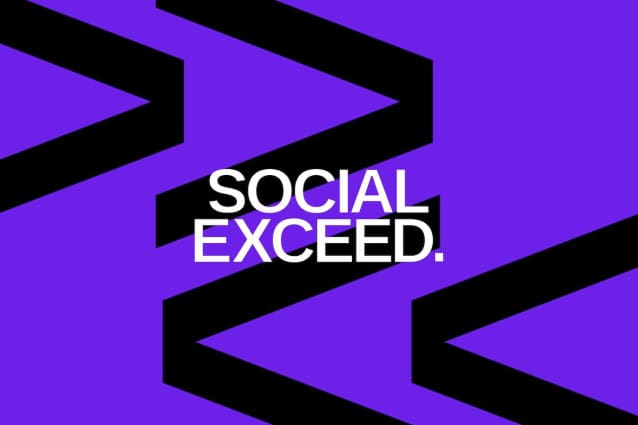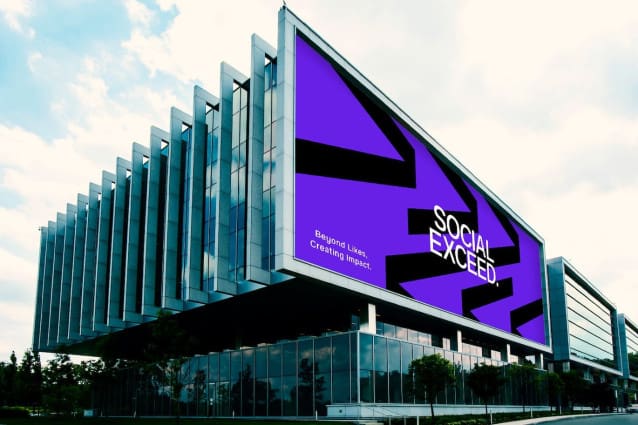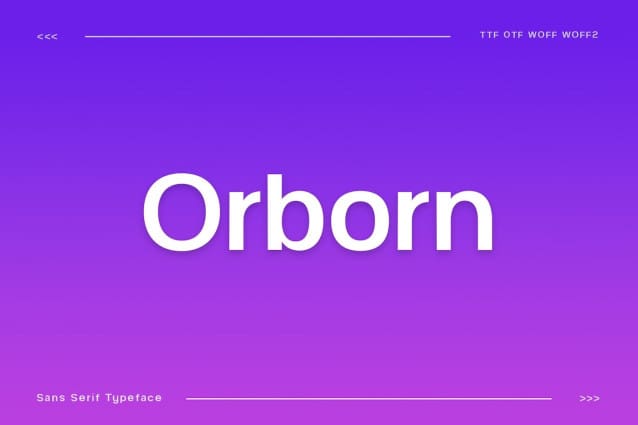
Orborn Font
Orborn Font – Display new generation Typeface. Orborn Typeface created with the vision of to attract the audience to your brand. The finest details of this typeface are methodically and mathematically created. Orborn is created with all the tasks of a corporate font and also for the usage in a variety of projects, including branding, logos, titles, headlines, posters, screens, displays, digital ads, and everything else.